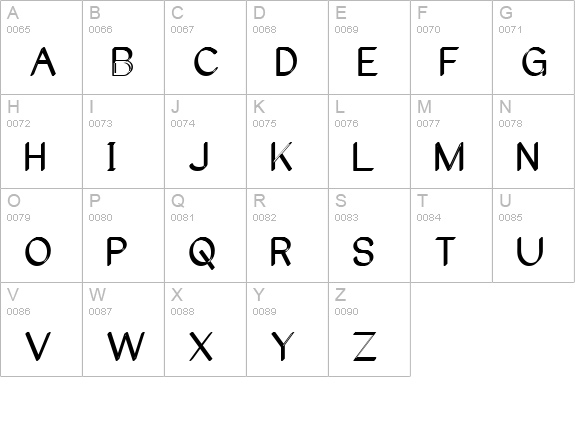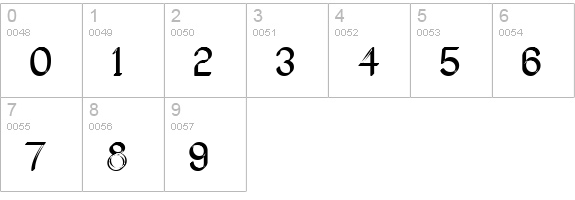
Castorgate - Distort Font Details
Castorgate - Distort font is a unique and eye-catching typeface that combines a modern aesthetic with a distorted twist. Its bold and dynamic letterforms make it perfect for headlines, posters, and branding projects that require a touch of edginess. The distorted elements add a sense of movement and energy to any design, making it stand out from the crowd. What's even better is that Castorgate - Distort font is available for free download at FontsMarket.com. This means you can easily add this striking font to your collection without breaking the bank. Whether you're a designer looking to spice up your projects or just someone who appreciates high-quality typography, Castorgate - Distort font is a fantastic choice that won't cost you a penny. Download it today and start creating stunning designs with ease!